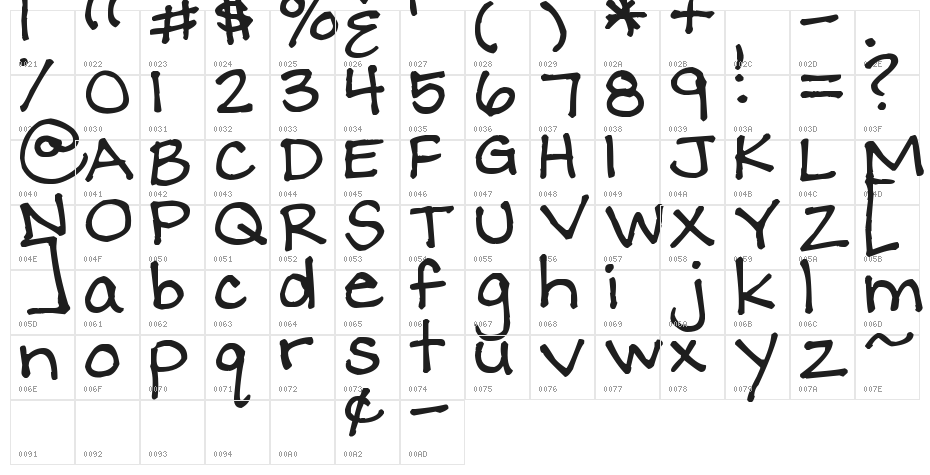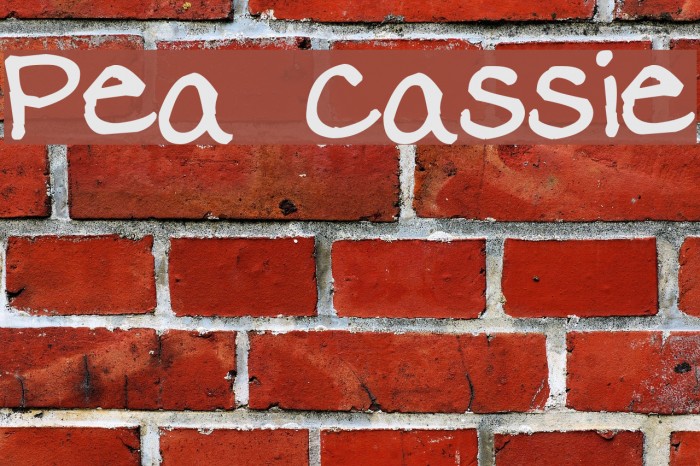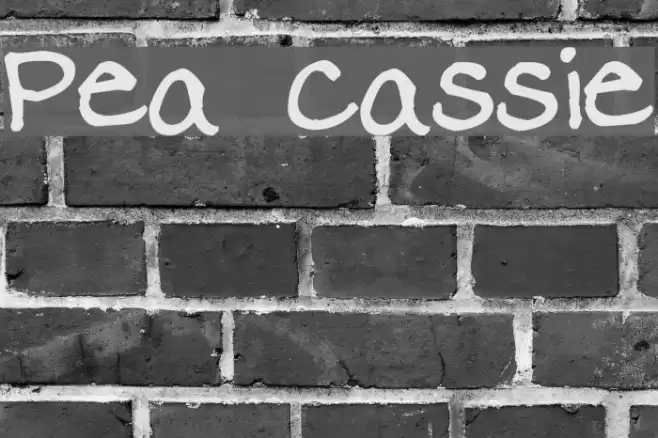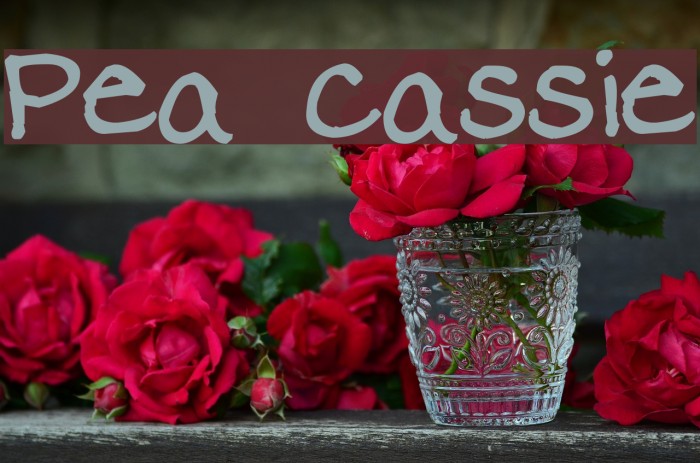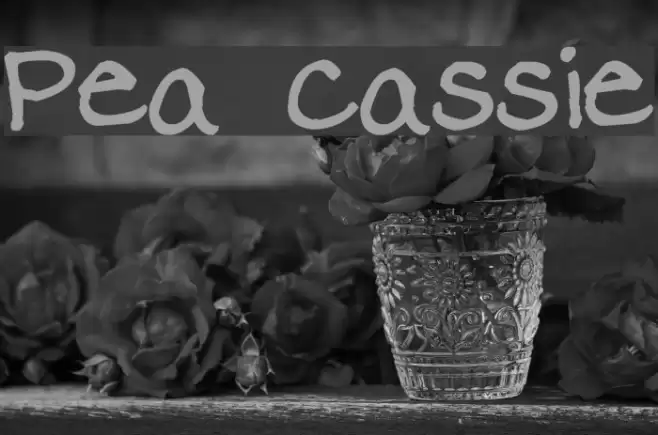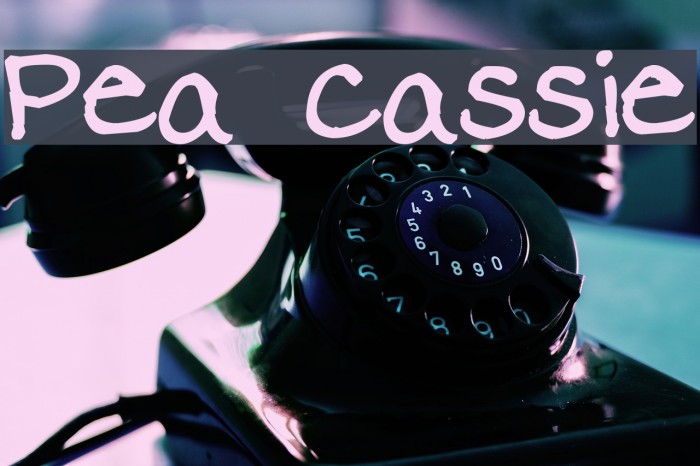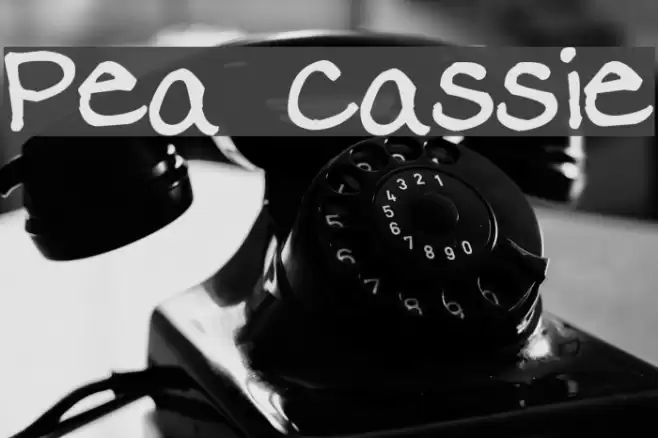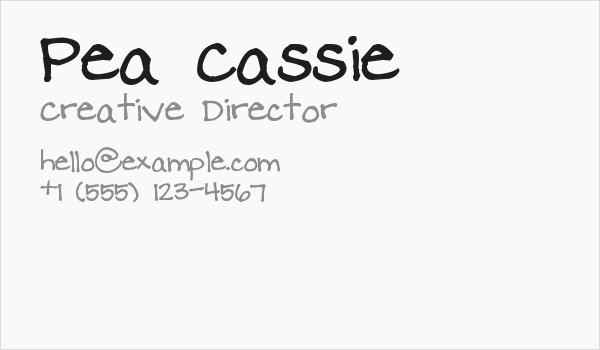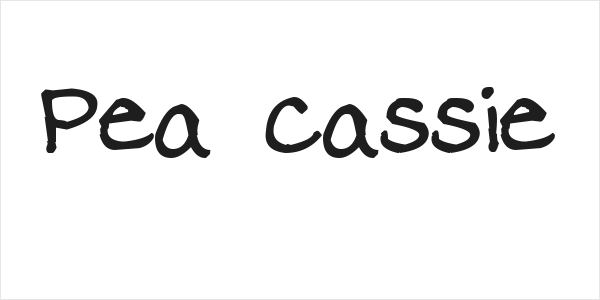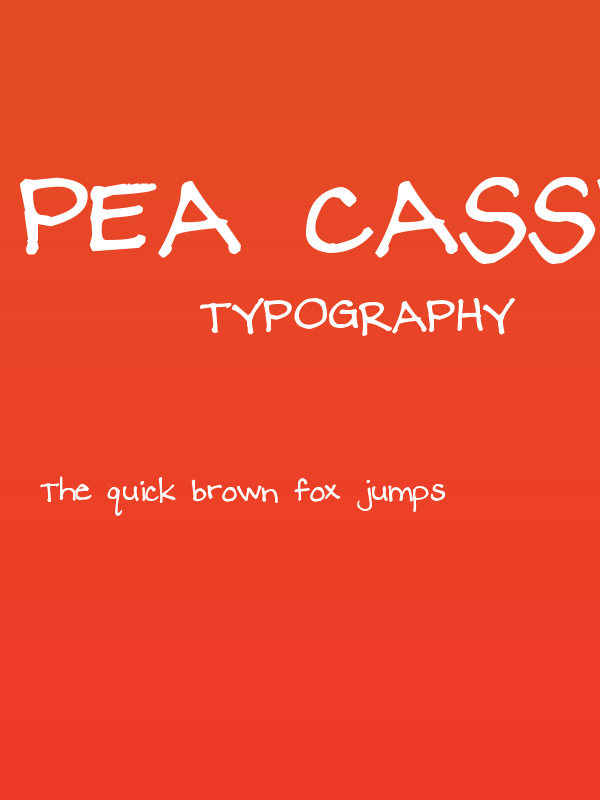
Pea Cassie Font
Pea Cassie Description
This playful and casual handwritten font exudes a friendly and approachable vibe. The letters are slightly irregular, giving it a personal and informal touch, reminiscent of a child's handwriting or a quick note jotted down in a hurry. The strokes are bold and consistent, with a slight tilt that adds to its dynamic appearance. The font maintains a good balance between readability and style, making it suitable for various creative projects. The numbers and special characters are crafted with the same playful spirit, ensuring a cohesive look across all text elements.
| Use Case | Headlines, Logos, Informal text |
| Proposed Projects | Ideal for greeting cards, children's books, casual invitations, and playful branding. |